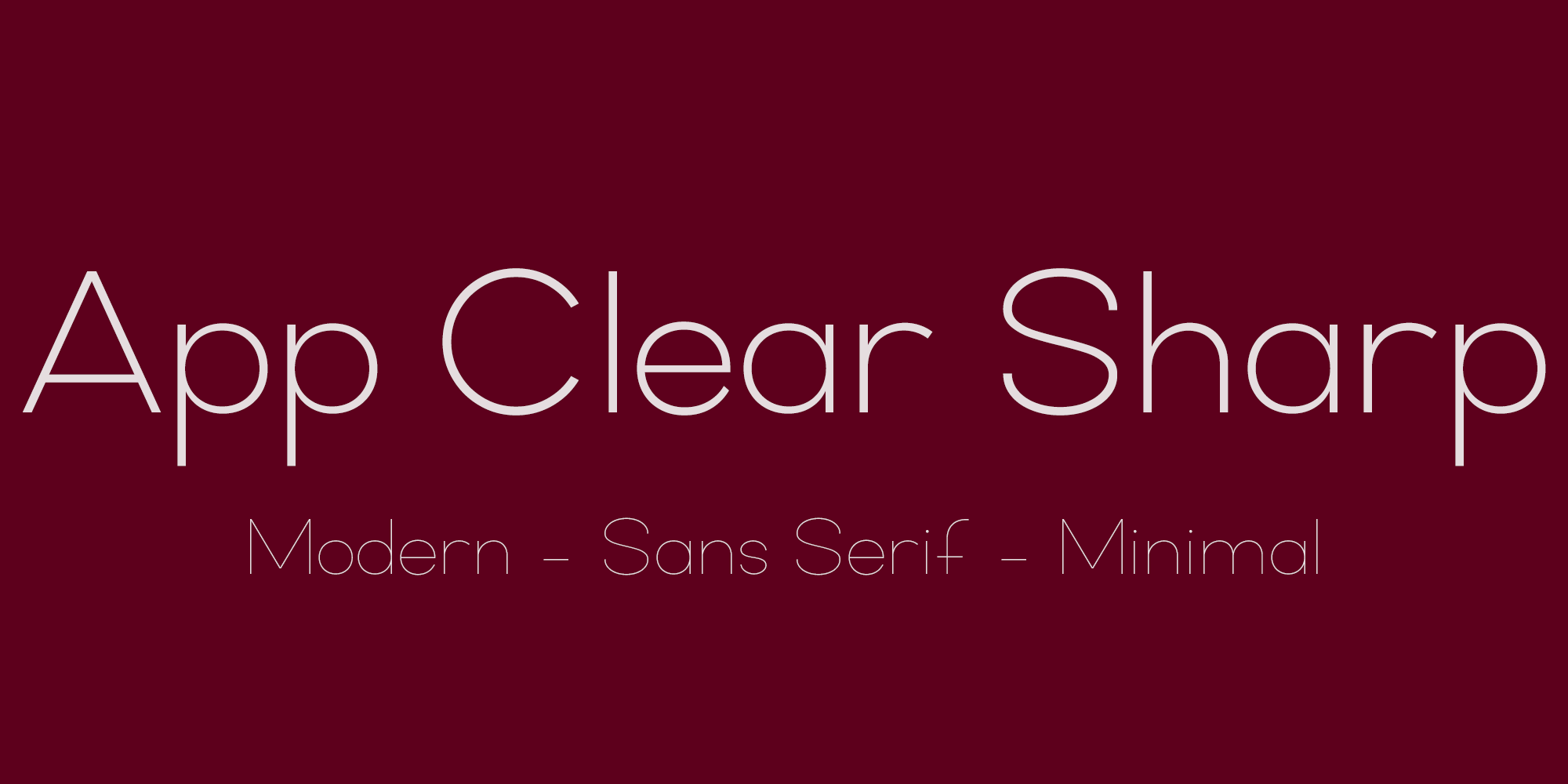
This exceptionally versatile font is perfectly suited for a vast array of applications, including intuitive user interfaces, sleek mobile app designs, crisp website typography, professional presentations, modern branding materials, and any project requiring ultimate clarity. Its clean lines ensure your content is always legible and appealing.
What makes the App Clear Sharp Font so exciting? It's engineered for optimal readability and a modern aesthetic. In a world saturated with digital content, this font cuts through the noise, delivering information with precision and elegance. Its sharp, well-defined letterforms prevent visual clutter, making it ideal for environments where clarity is paramount, such as dashboards, data visualizations, and instructional text. This font doesn't just look good; it actively enhances user experience by reducing eye strain and improving comprehension. It’s the go-to choice for designers who prioritize functionality and a sophisticated, contemporary feel.
The App Clear Sharp Font comes with a comprehensive family designed to provide maximum flexibility and consistency across all your designs. This typically includes a range of weights such as thin, light, regular, medium, bold, and extra bold. You'll also find italic versions for each weight, along with potentially condensed and expanded variations, allowing for precise typographic control. Some families might even offer different styles like rounded or geometric to further expand your design possibilities, ensuring a cohesive and polished look for any digital or print application.